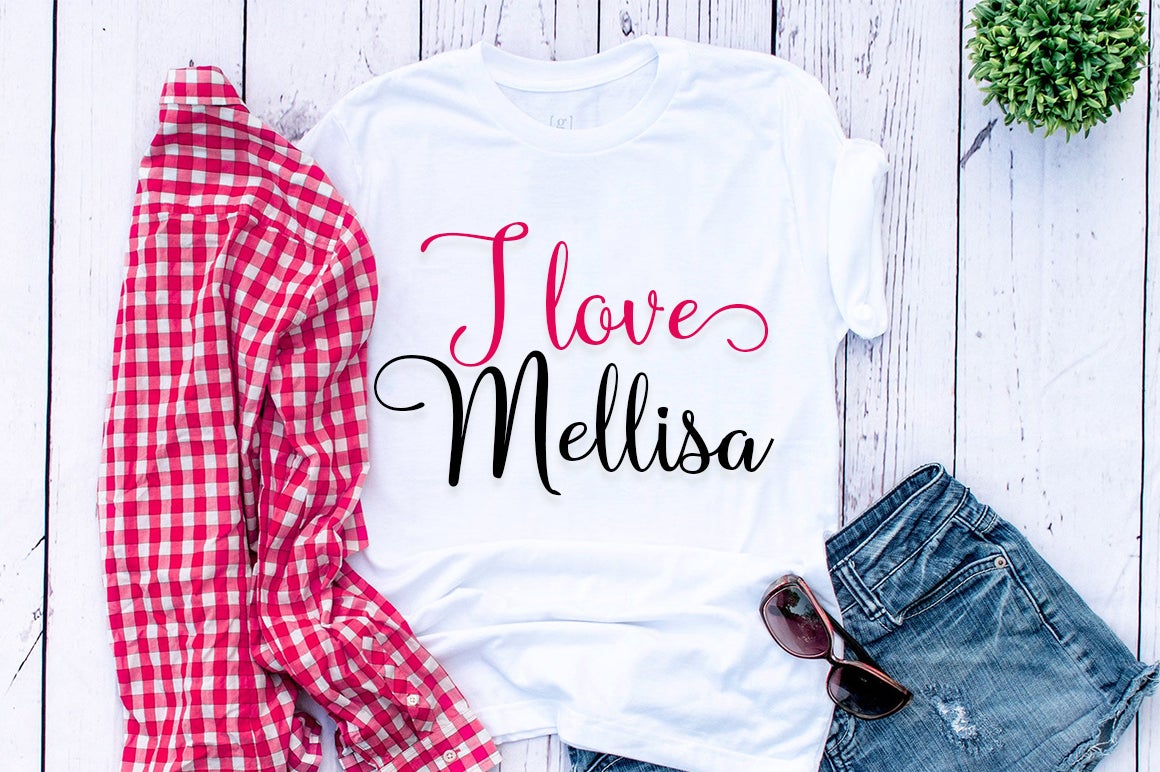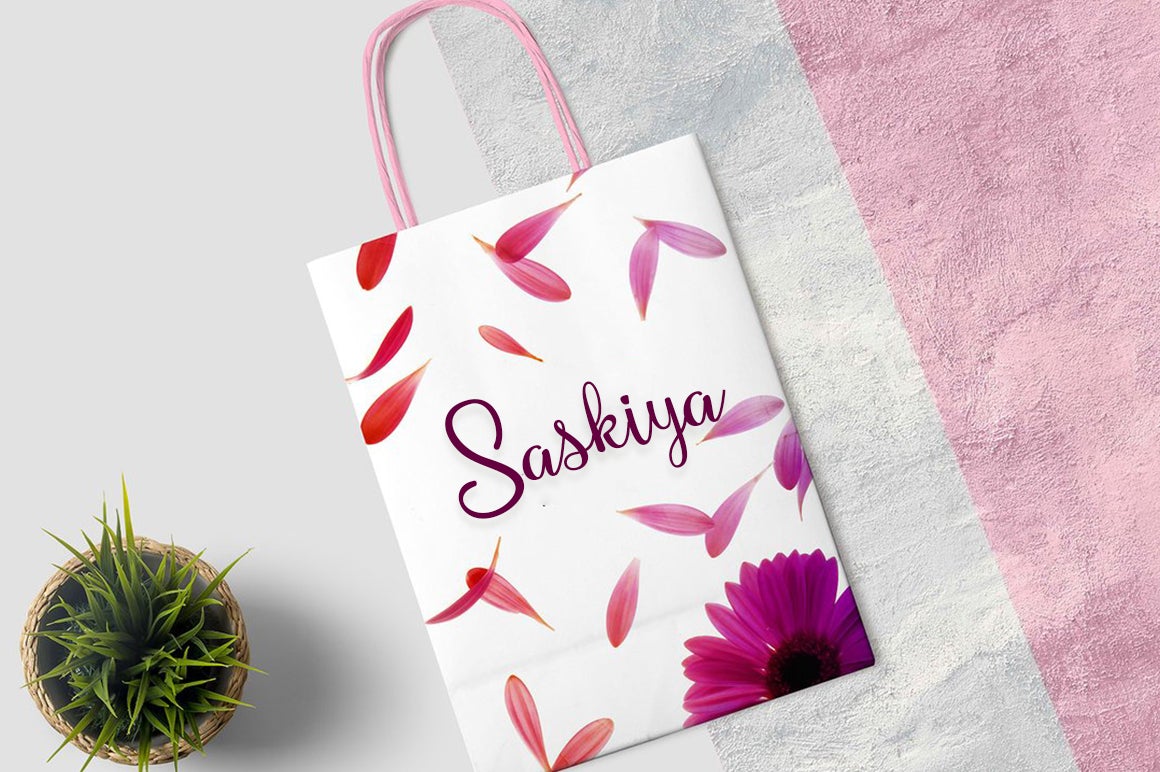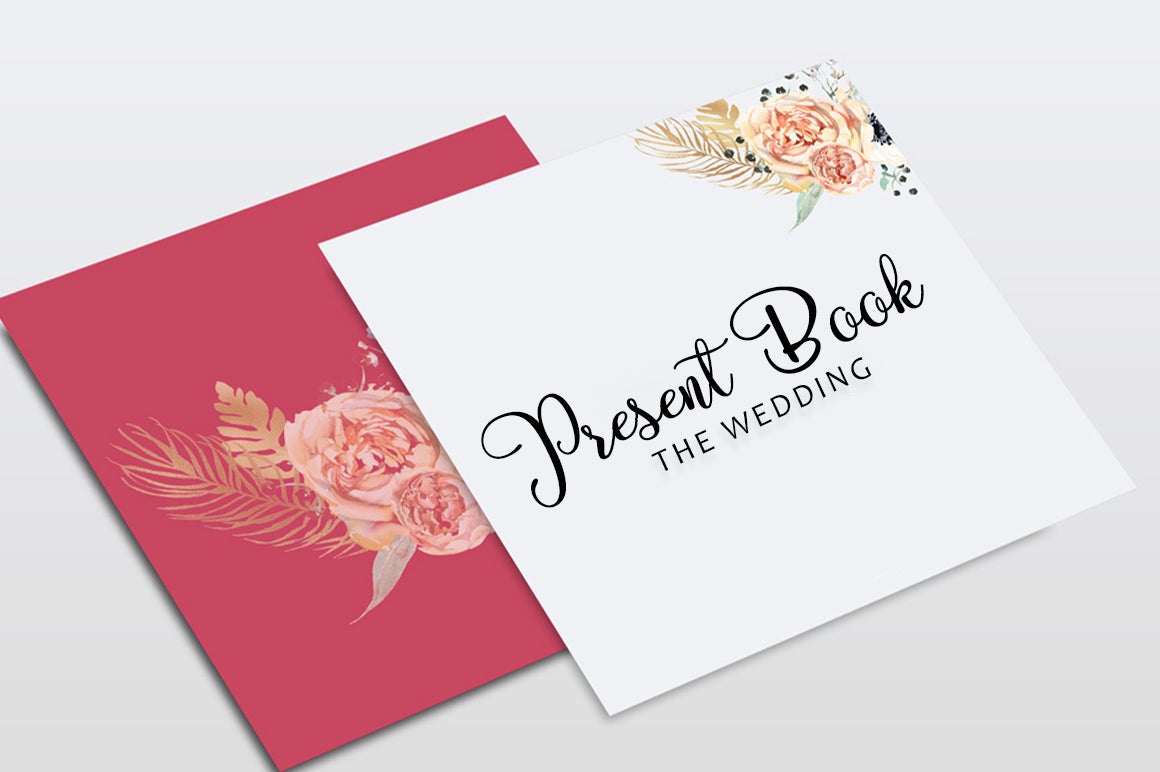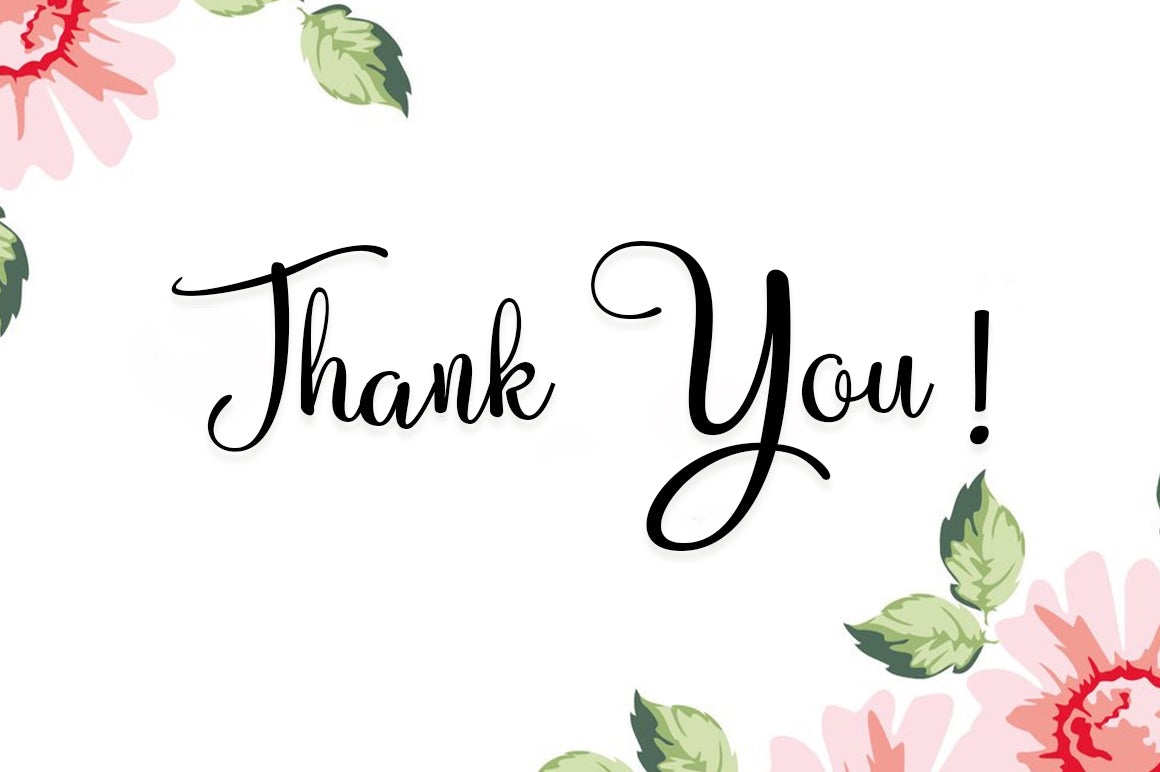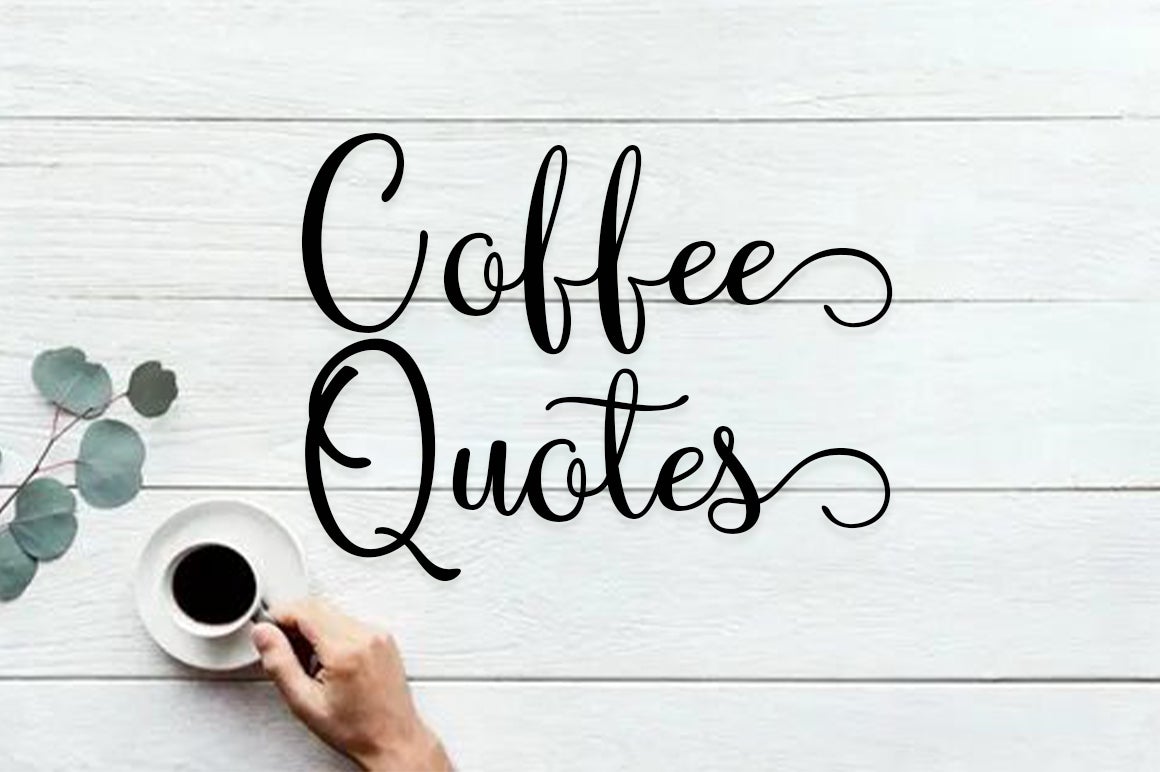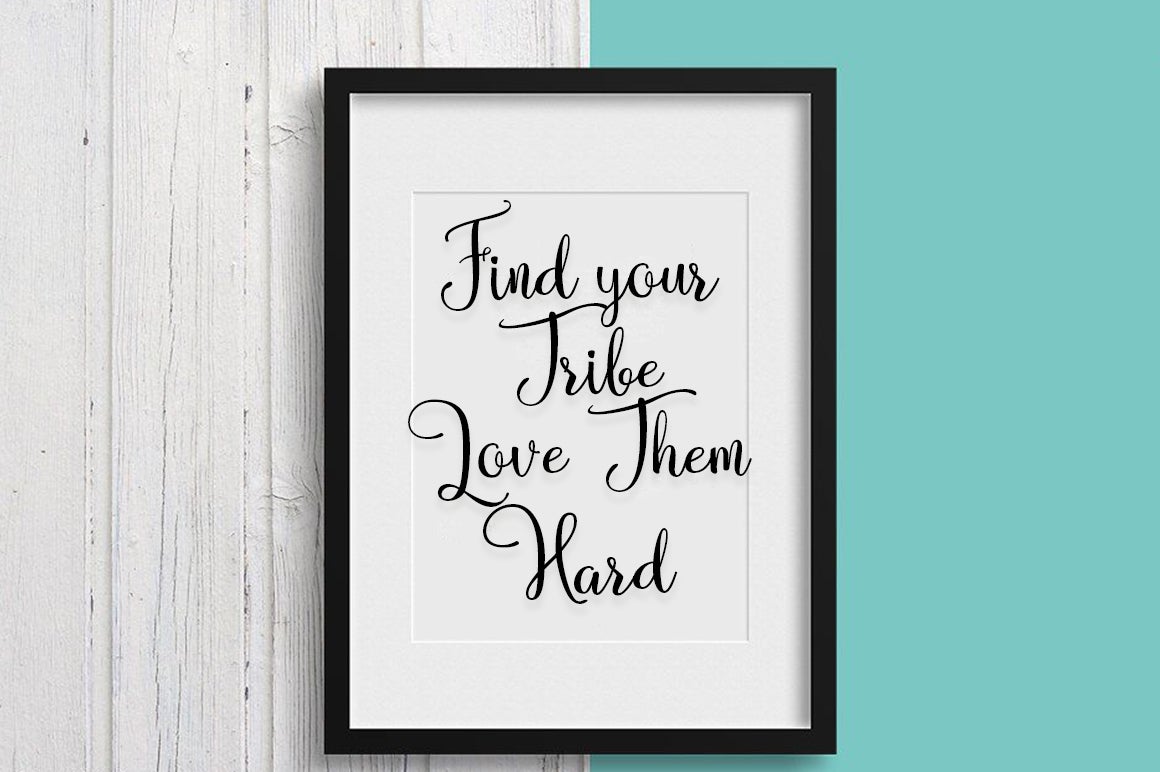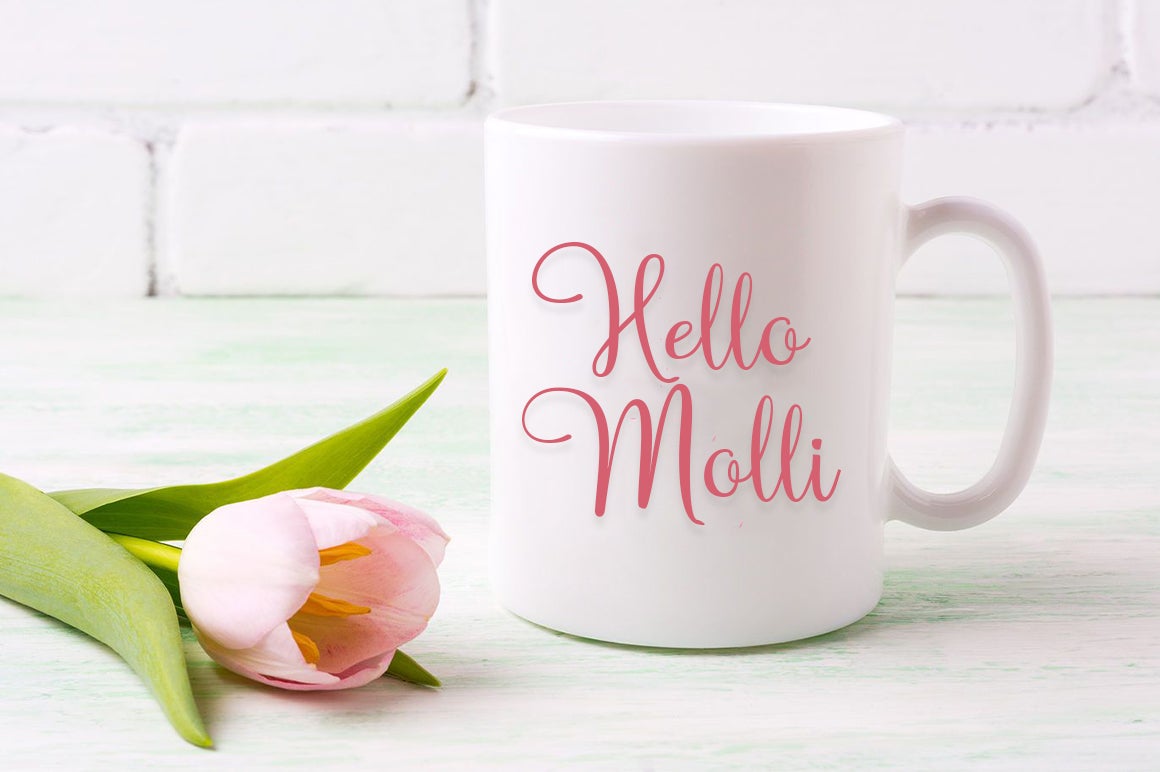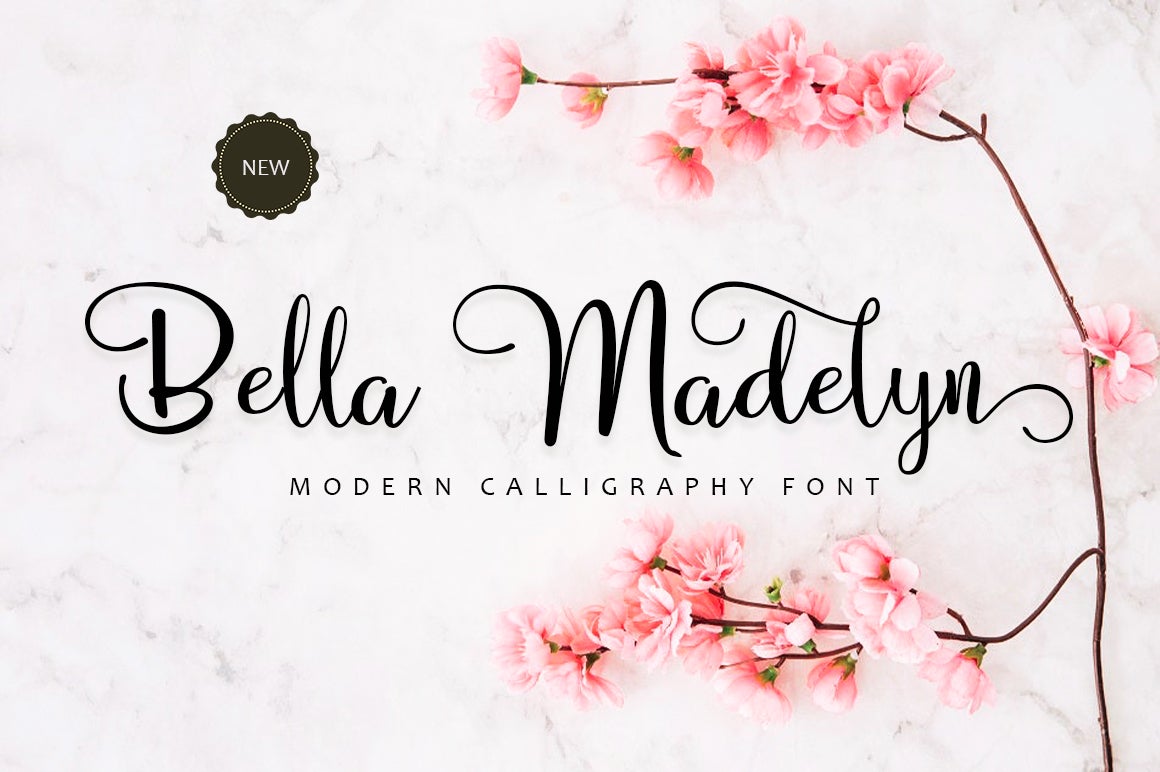
Bella Madelyn
About Bella Madelyn
Bella Madelyn is a modern calligraphy typeface. It has characters dancing along the baseline that will give your design an elegant touch. It can be used for various purposes such as logos, wedding invitations, headings, t-shirt, letterheads and much more!